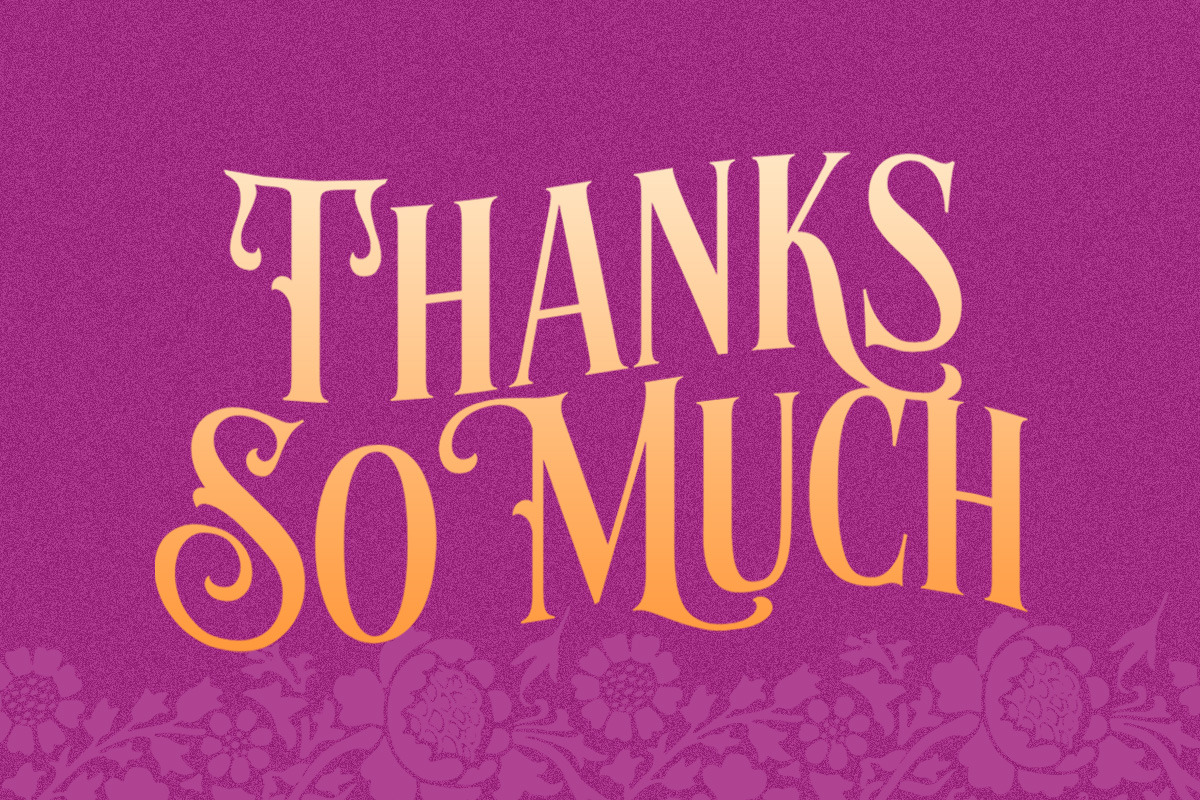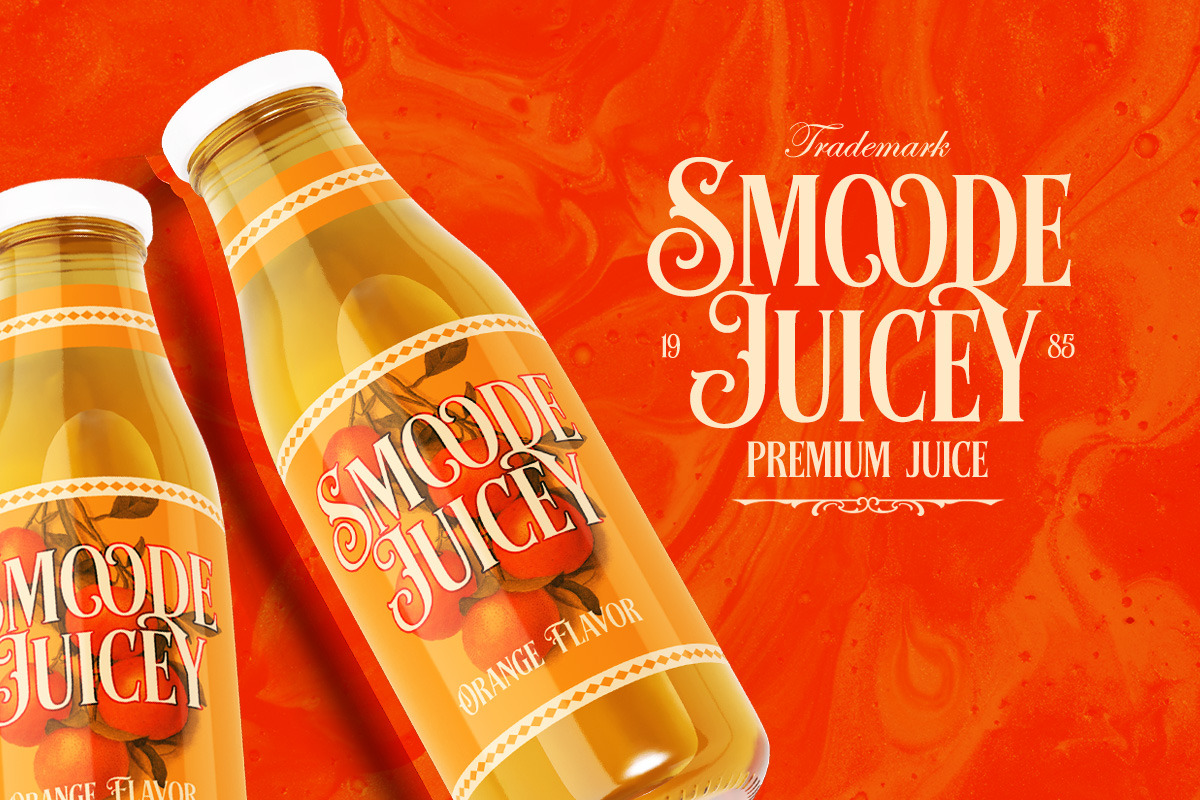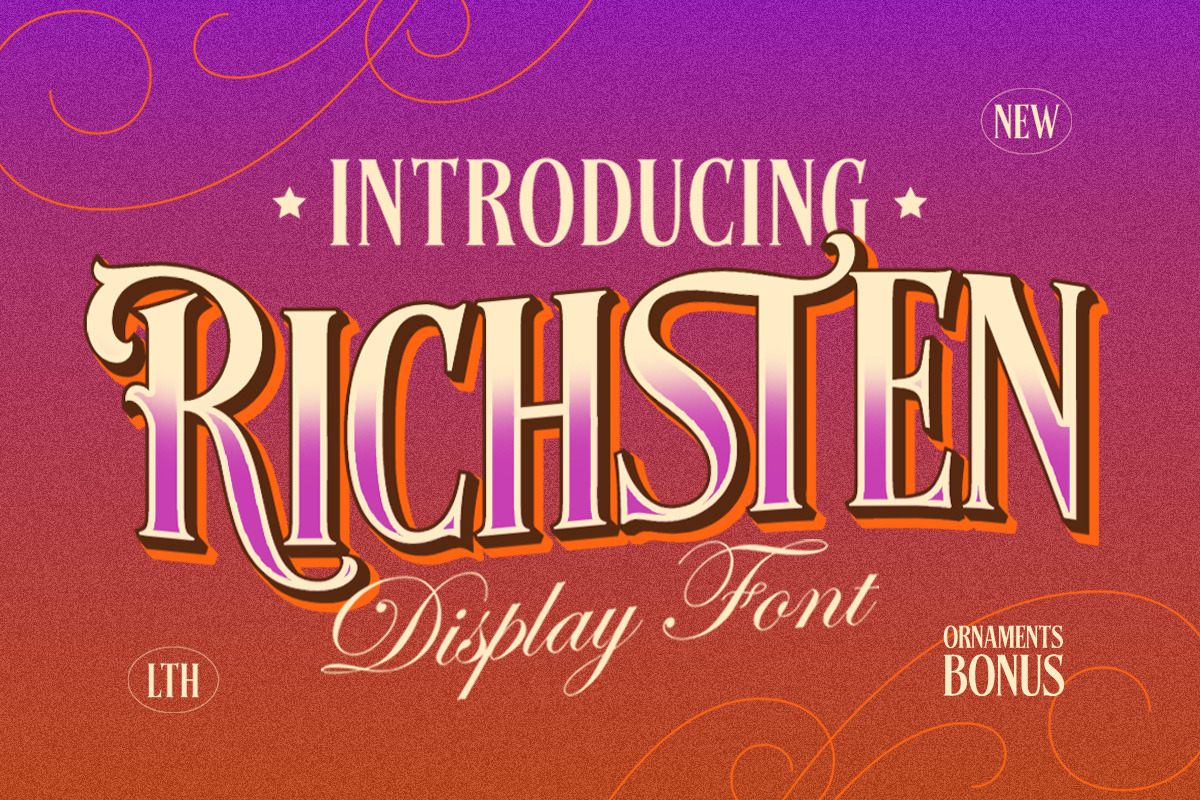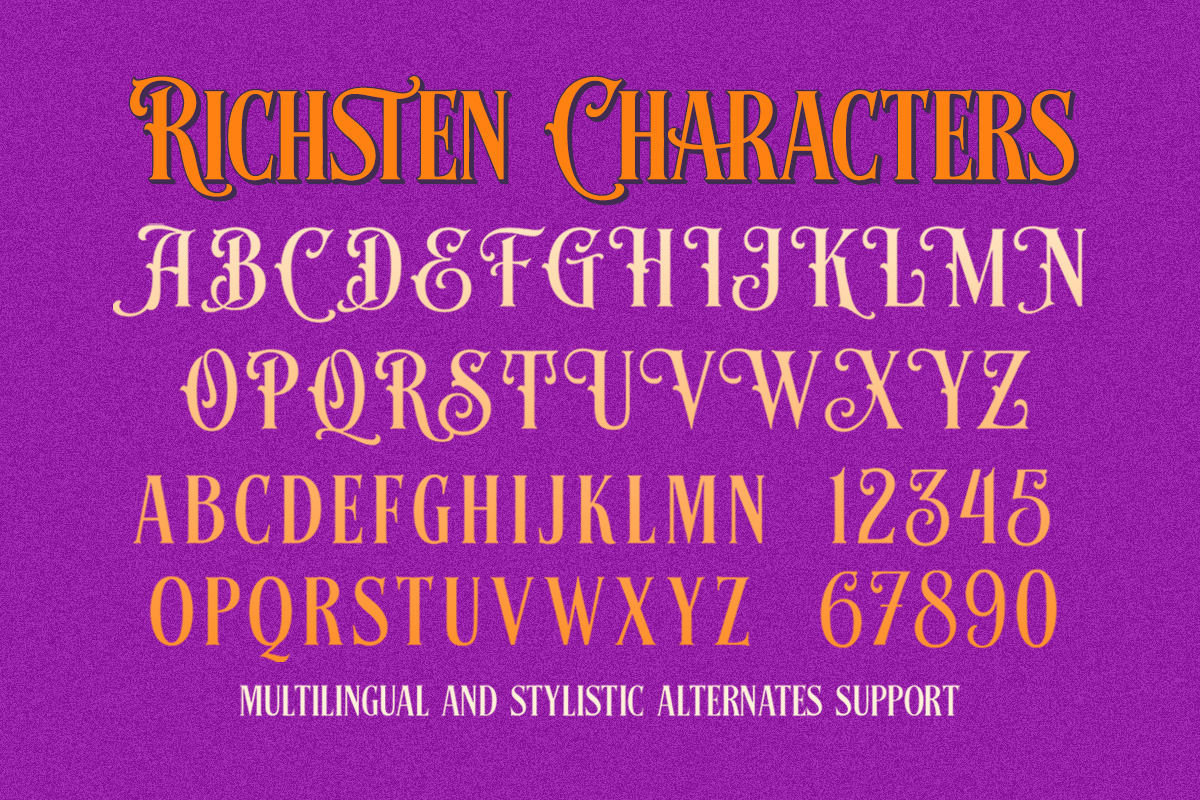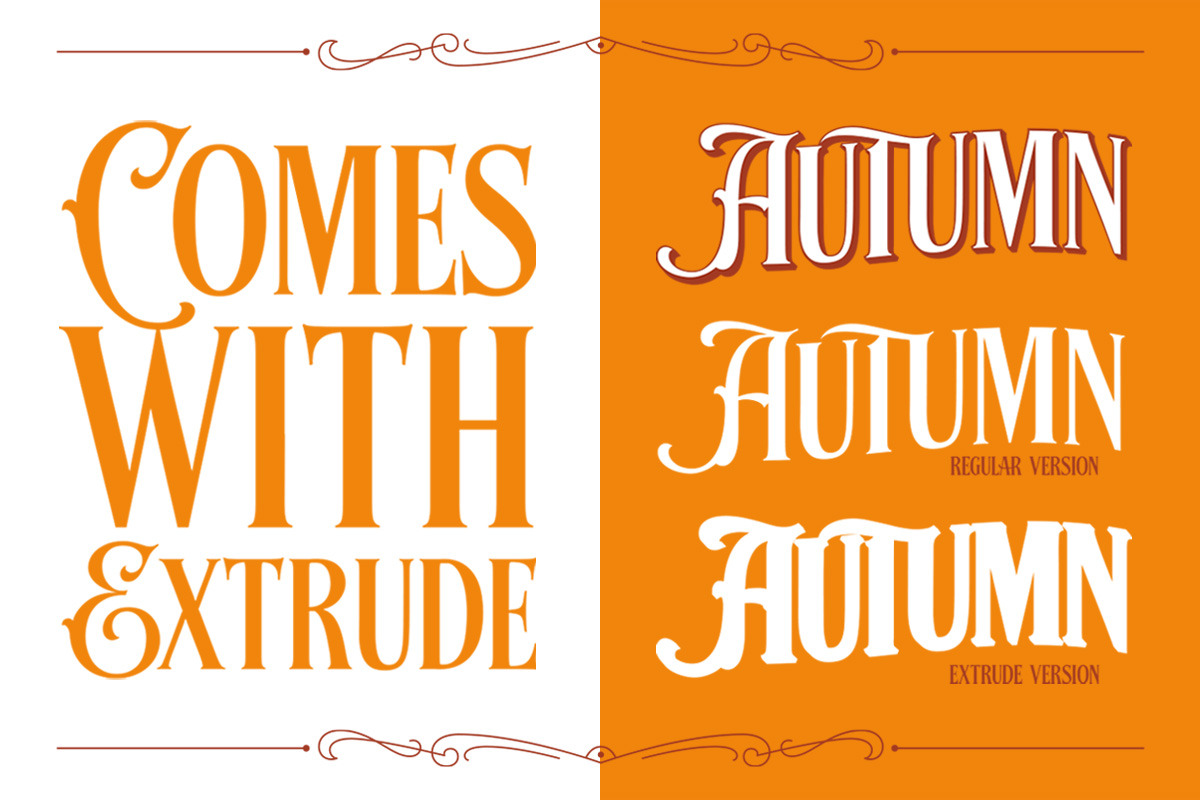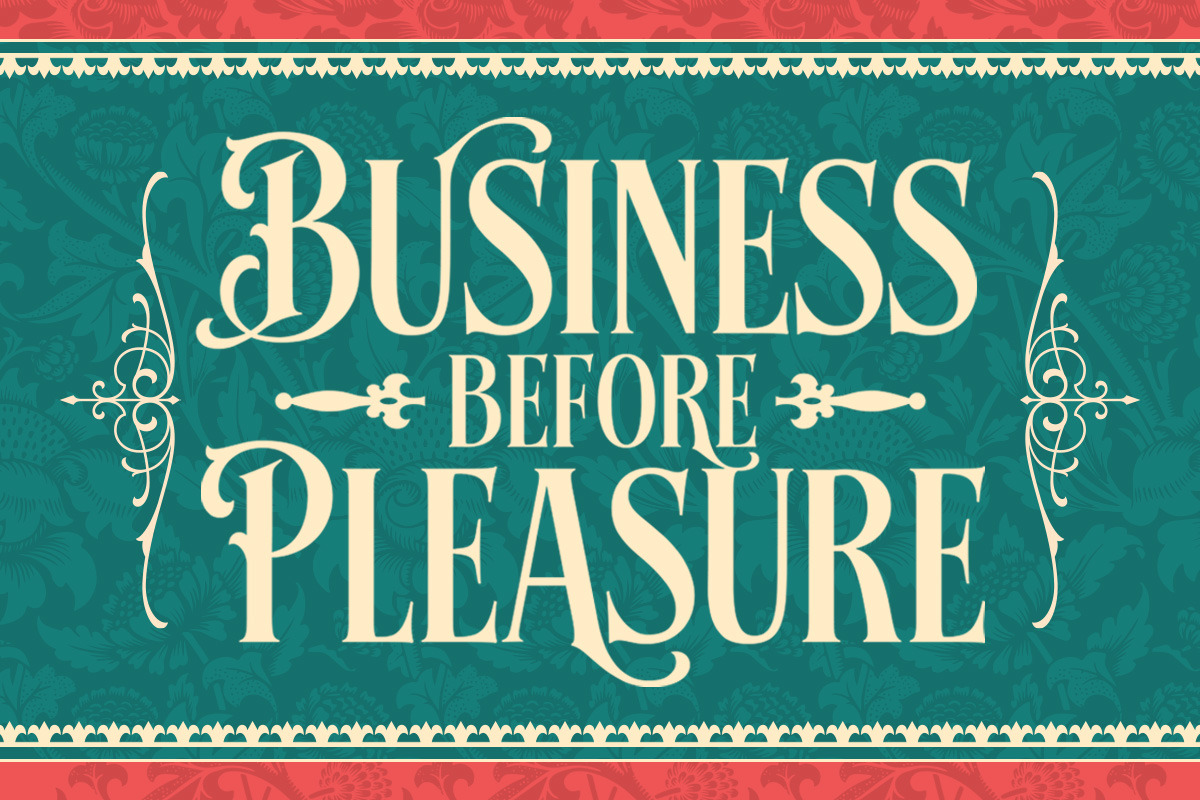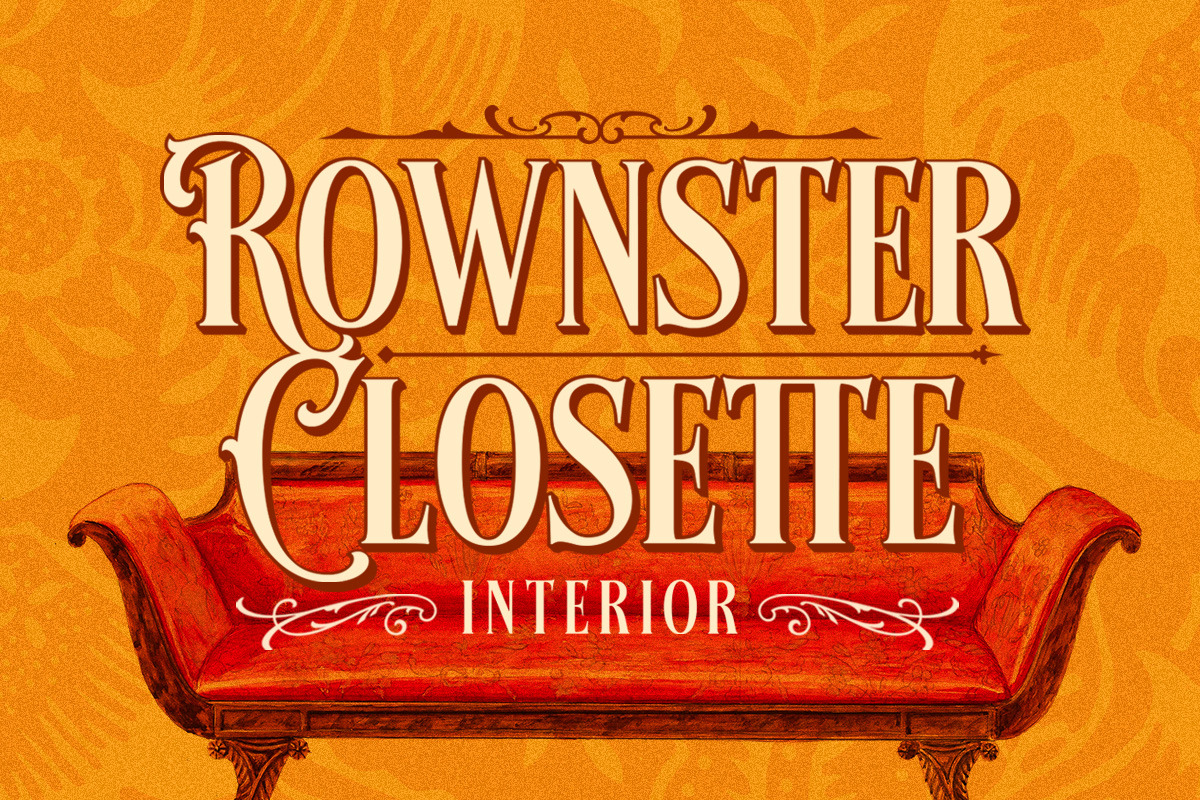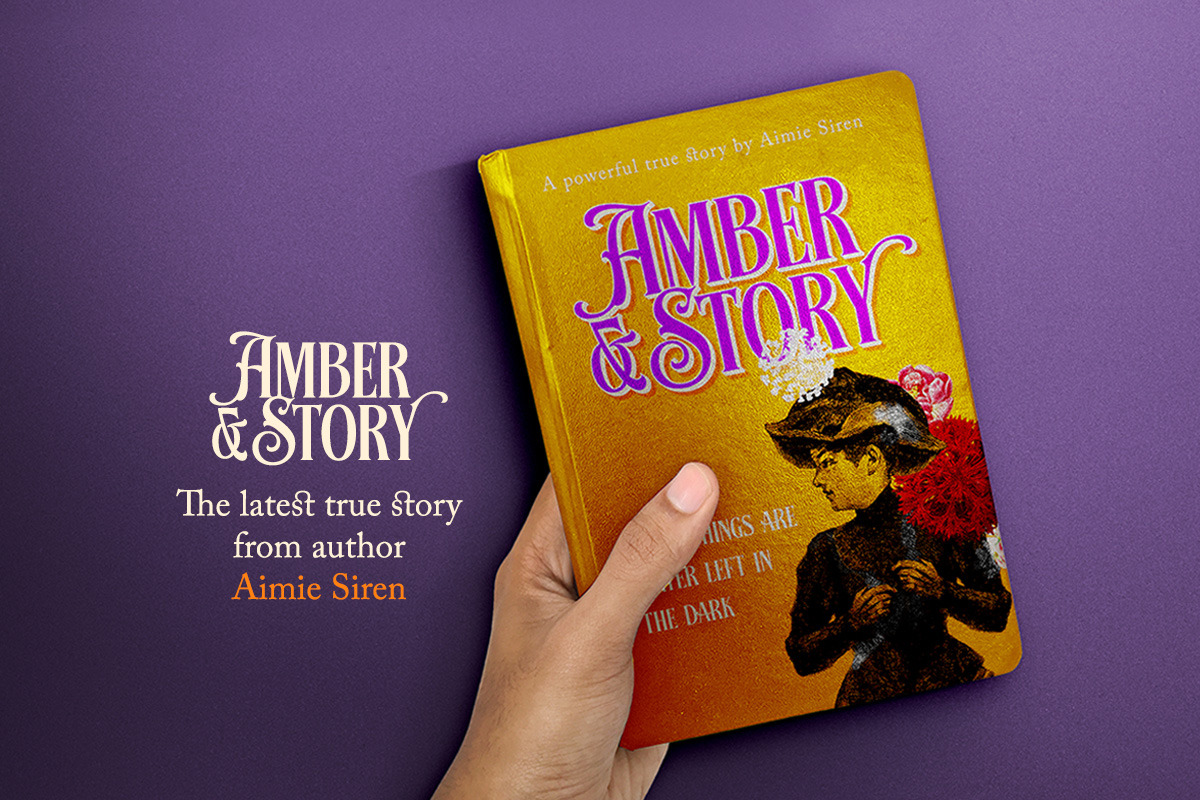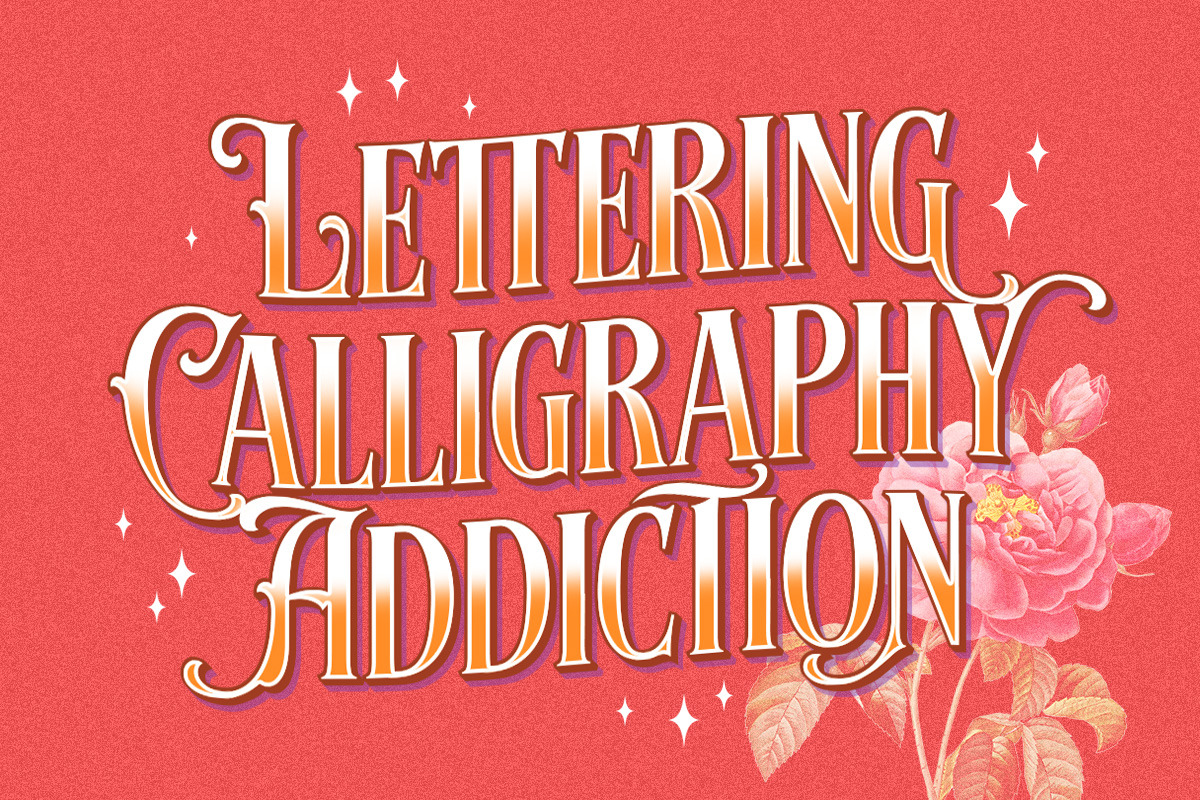
Richsten - Victorian Display Font
Richsten is a typeface which is inspired by vintage lettering sign and art. While this font has a victorian touch, it still looks bold and solid. It comes with bonus ornaments. Very suitable for for headline, logotype, apparel, invitation, branding, packaging, advertising etc with old school / vintage theme. This typeface looks great combined with decorative ornaments. It comes in uppercase, lowercase, punctuations, symbols & numerals, stylistic set alternate, ligatures, etc also support multilingual and already PUA encoded.
- alternates and ligatures
- swashes
- vector ornaments